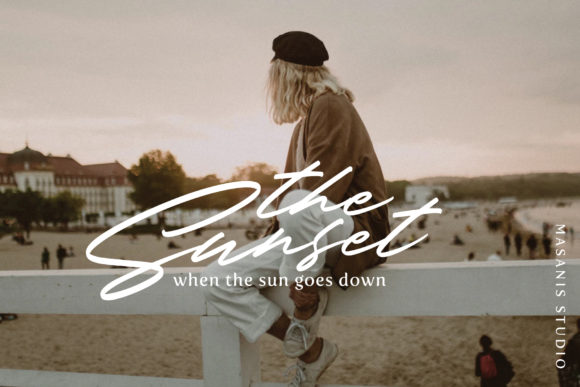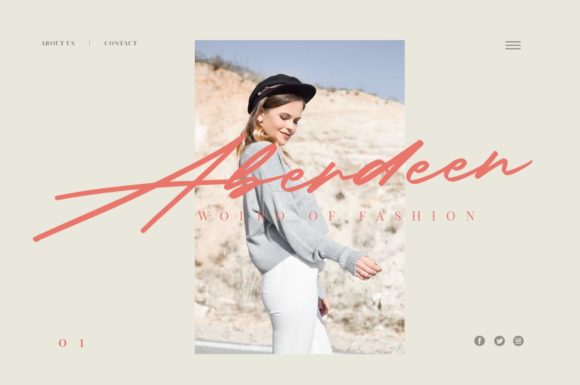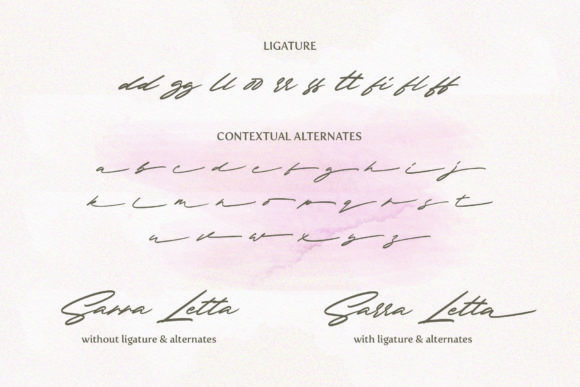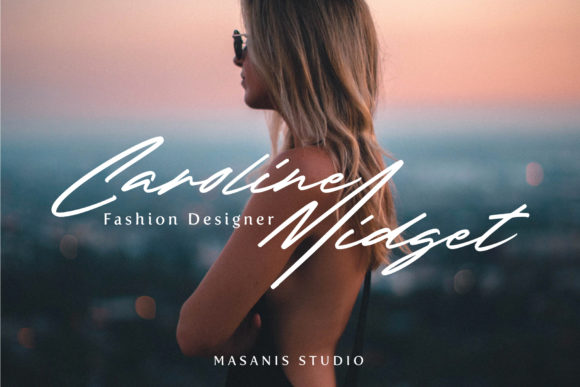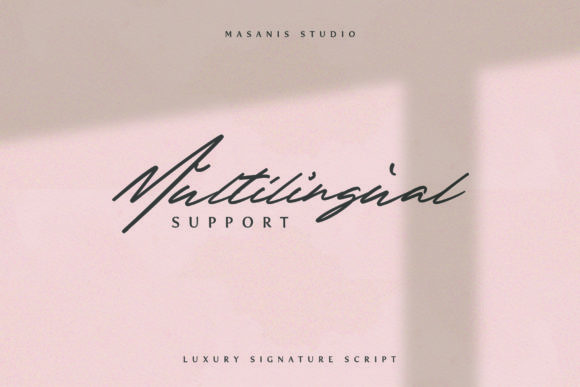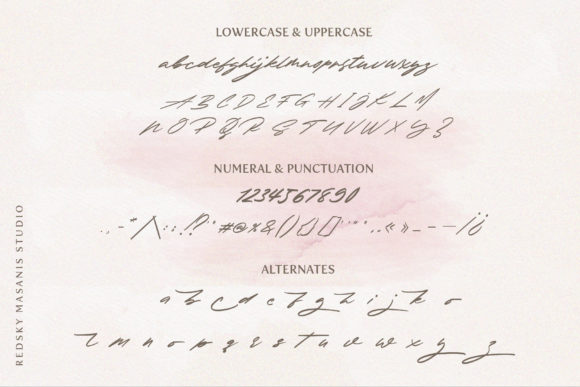
Introduction to RedSky Font
Have you ever sat at your desk, staring at a blank page, trying to come up with the perfect design for your next creative project? The cursor blinks, and your mind goes blank. But then, like a burst of inspiration, you stumble upon a font that makes everything click. For designers, finding the right font can be a game-changer.
| 👤 Author | Mas Anis |
That’s where the RedSky Font comes in – a flowing handwritten font that adds an elegant touch to any project. With its incredibly distinct and timeless style, it’s no wonder why designers fall in love with it. Whether you’re working on a logo, a social media graphic, or a marketing campaign, the RedSky Font is the perfect design resource to elevate your creations.
Key Features of RedSky Font
- High-quality design resource suitable for various creative projects, including logos, posters, and infographics.
- Features a unique, modern design with a transparent background, allowing for easy customization and flexibility.
- Supports a wide range of languages, including Latin, Cyrillic, and Greek alphabets.
- Designed to be scalable and legible at various font sizes and resolutions, ensuring high-quality output in any creative project.
Honest Review: RedSky Font
I recently had the opportunity to work with the RedSky Font, and I must say, it’s a solid addition to any designer’s toolkit. This free download is a great resource for anyone looking to add a touch of elegance to their creative project.
One of the standout features of the RedSky Font is its high quality and versatility. It’s available in a range of styles and weights, making it perfect for use in various contexts. The transparent background option also allows for seamless integration with images and other design elements.
Here are some things that work well with the RedSky Font:
- ✨ High-quality design that’s perfect for print or digital use
- ✨ Wide range of styles and weights to suit various design needs
- ✨ Transparent background option for easy integration
However, I did encounter a few limitations while using the RedSky Font:
- ⚠️ Limited character set, which can make it difficult to use in certain contexts
- ⚠️ Not suitable for use in very small sizes, as the font can become pixelated
Overall, I’m impressed with the RedSky Font and would definitely recommend it to designers looking for a high-quality, free design resource. Just be mindful of its limitations, and you’ll be all set for a beautiful and professional-looking design.
Getting the Most Out of RedSky Font
To get the most out of RedSky Font, use it in conjunction with other design resources, such as images and graphics, to create a high-quality design. Experiment with different font sizes and colors to achieve the desired effect. The transparent background feature of the font allows for seamless integration with other design elements, making it a versatile design resource.
RedSky Font is commonly used for creative projects, such as social media graphics, presentations, and posters. It is also ideal for use in marketing materials, such as flyers and brochures, due to its high-quality design and transparent background feature.